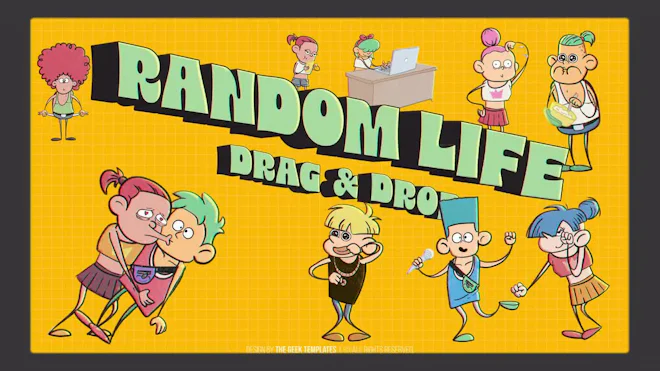
Pack Of 59 Goofy Hand-Drawn Characters And Typefaces On Alpha Loop
This stock motion graphics video pack includes 59 different clips of goofy hand-drawn characters and typefaces - letters, numbers, and symbols on a transparent alpha channel in a seamless loop.